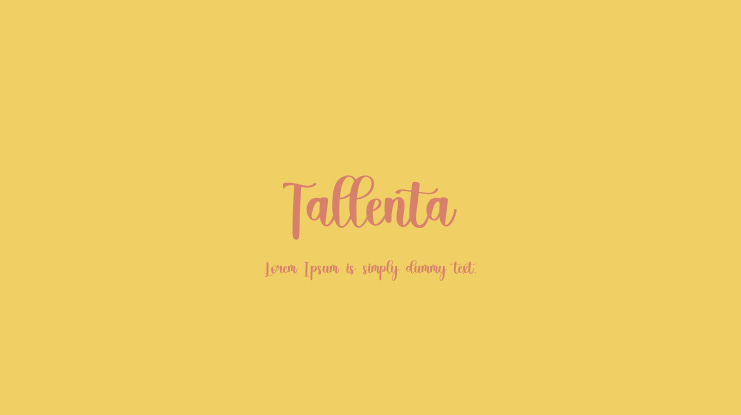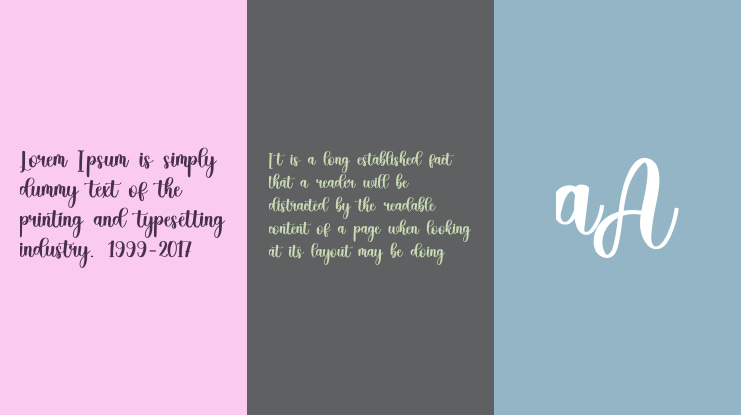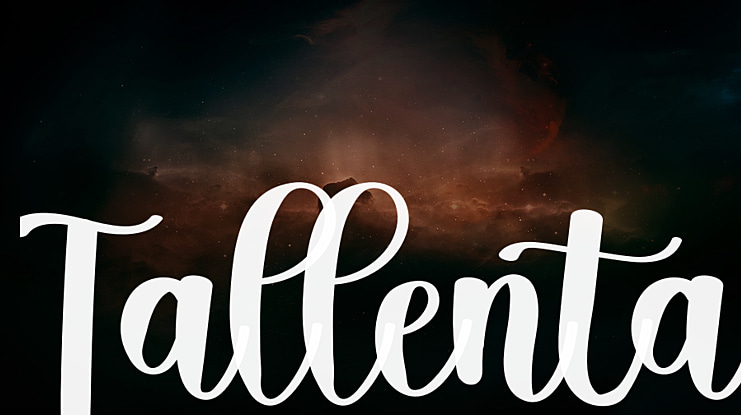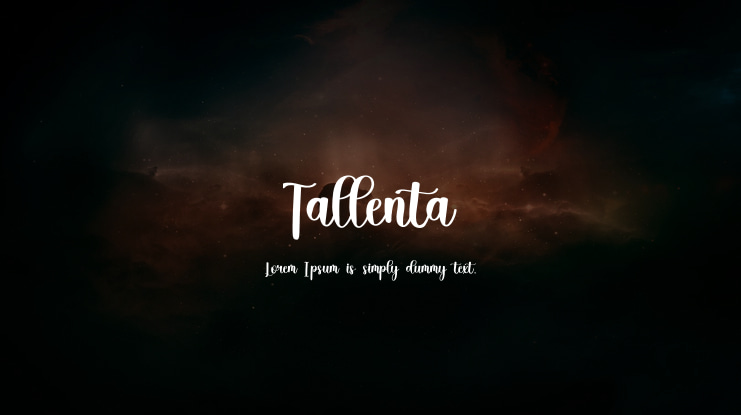
Tallenta Font
This is a relaxed and beautiful paint brush handwritten font. It can be used for various purposes such as logos, wedding invitations, headings, t-shirts, letterhead, signage, labels, news, posters, badges and so much more.